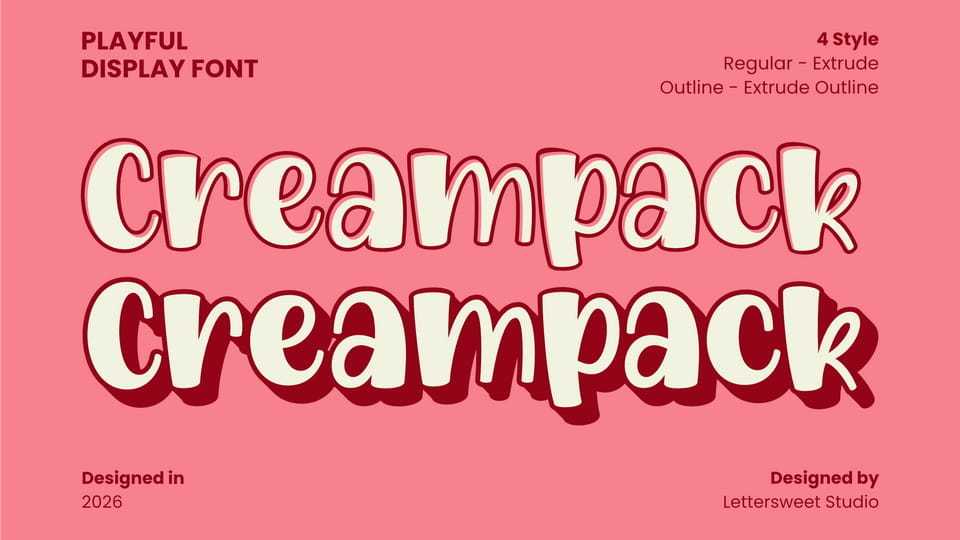
Download Creampack font, a playful and bold display typeface designed to bring fun, warmth, and retro charm into your designs. Creampack is perfect for projects that need a friendly, cheerful, and eye-catching look.